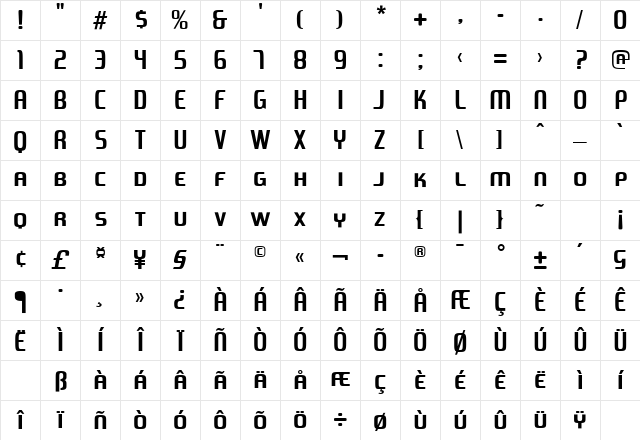
76London Medium Free Font
76London Medium
Design Context for 76London
76London is a composed and adaptable typeface that performs quietly and consistently across a wide range of design contexts.
Who designed the 76London Medium font?